23 Best Handwriting Fonts for Branding, Planners & Posters – Honest Review
Let me be honest with you.
I’ve worked with thousands of fonts. Serious serifs, cold sans-serifs, flashy display fonts — they all have their place. But when I really need a project to feel like something? When I want it to breathe, to smile, to whisper “a real person made this”?
I reach for Handwriting Fonts.
There’s something magical about a font that doesn’t try to be perfect. The little wobbles. The uneven curves. The way letters connect like they just couldn’t help themselves. That’s what real handwriting brings to design — and that’s exactly what this collection is about.
In this article, I’m walking you through my personal stash of handwritten fonts. The ones I actually use. For logos, posters, digital planners, branding, you name it. Some are cute, some are elegant, some are deliciously messy. But all of them feel human.
So grab a coffee, scroll through, and let me introduce you to your new favorite fonts.
No fluff. Just the good stuff. ✍️
1. Natural Handwriting Script Font
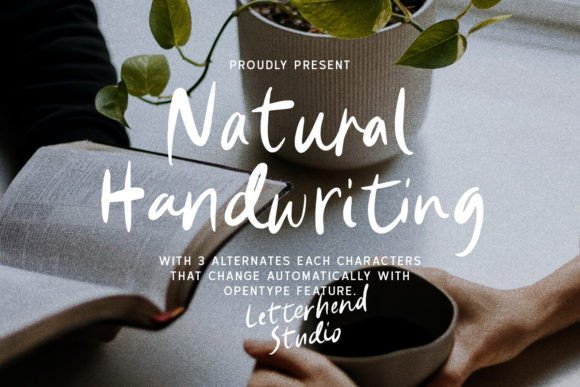
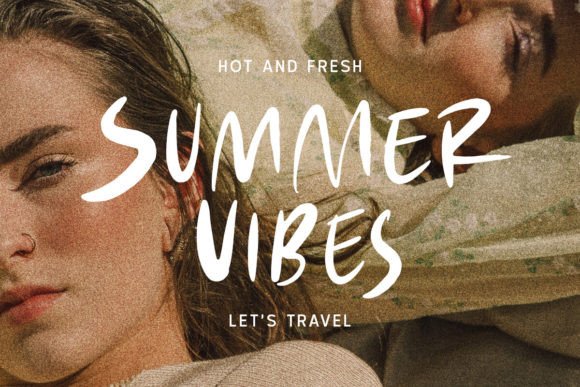
This one feels like a real pen hit paper — textured, slightly uneven, alive. I’ve used Handwriting Fonts like this for coffee shop menus, personal blog headers, and even packaging that needs a homemade soul.
The brush texture saves it from looking fake. Big plus: it stays readable at medium sizes, so it works for quotes in digital books or soft branding. If you want “human” without the cringe, grab this.
Best for: Logos, quote posters, cozy branding, stationery.
Avoid: Tiny body text or formal reports.
2. Simple Daily Handwriting Script Font
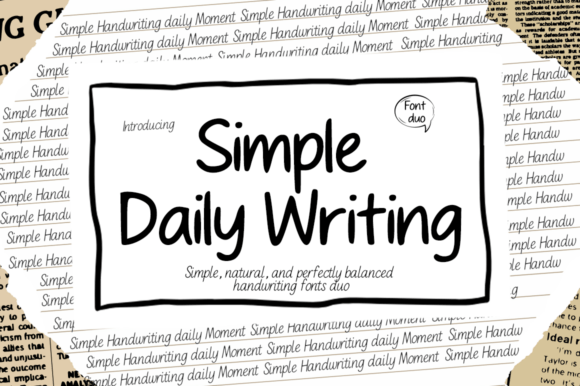
A Handwriting Fonts duo that doesn’t scream for attention. Regular for calm headers, Italic when I need a little motion — like a quiet conversation.
I’ve used this for digital planners, cozy recipe cards, and even light branding for a small bakery. The smoothness keeps it legible, so no squinting. What I love? It’s warm but not cutesy. Works great in e-books and posters where you want “effortless” to actually look effortless.
Best for: Journals, lifestyle blogs, soft logos, invitations.
Avoid: Heavy industrial or tech projects.
3. Raleigh Handwriting Script Font
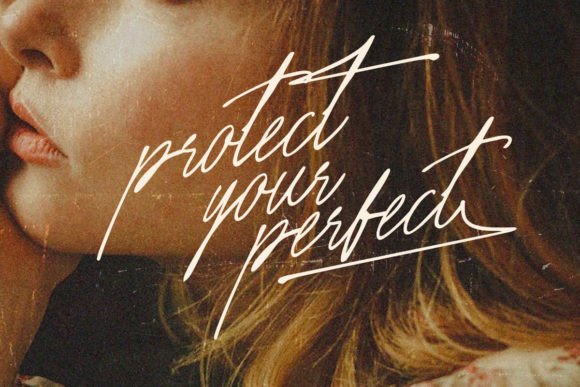
This one feels like a fancy pen that actually likes you. Raleigh brings real calligraphy flow — not that stiff, robotic stuff. I’ve reached for this Handwriting Fonts gem when doing wedding suites, elegant logos, and even digital signatures that need class.
The strokes have nice contrast: thick down, thin up. Makes any project look deluxe without screaming “look at me.” Bonus? Works beautifully for short quotes on posters or book covers. If you want modern but warm, this is your plus-one.
Best for: Invitations, luxury branding, signature-style logos, feminine packaging.
Avoid: Long body text or kids’ play designs.
4. Lively Writing Script Font
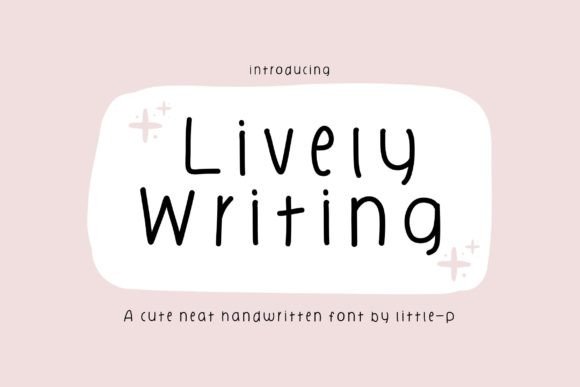
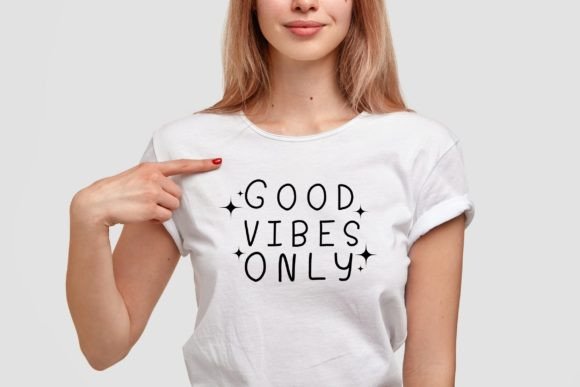
This font has actual personality — like that friend who always makes you laugh. I’ve dropped this Handwriting Fonts cutie into GoodNotes planners, kid-friendly posters, and even a T-shirt mockup once. It’s playful but not messy. Easy to read even when I’m tired (trust me, that’s rare).
The strokes bounce a little, which makes quotes and greeting cards feel alive. If you’re making educational stuff or just want your digital notes to not put you to sleep, grab this. Turns boring into bubbly.
Best for: Digital planners, classroom materials, cheerful quotes, casual merch.
Avoid: Corporate reports or elegant weddings.
5. Beauty Handwriting Script Font
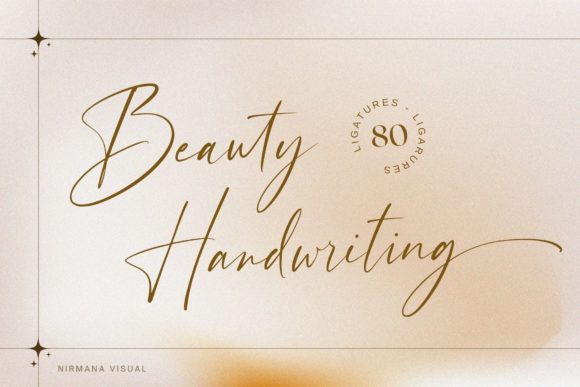
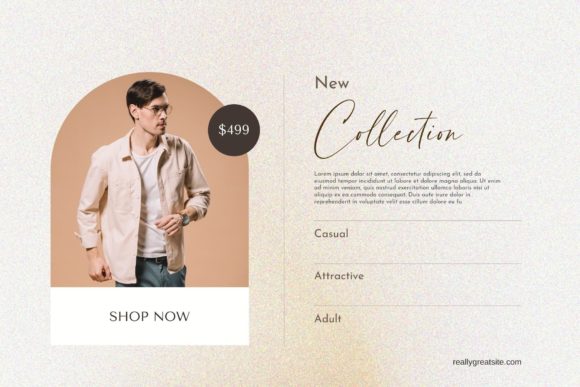
This one flows like it’s not even trying. Beauty Handwriting sits in that sweet spot between casual and polished — perfect when I need Handwriting Fonts that feel high-quality but not stiff.
I’ve used it for organic product packaging, wedding flyers, and even event posters where I want warmth without losing professionalism. The character balance is lovely: not too loopy, not too plain. Works like a charm for mockups too. Clients always ask “what font is that?” — that’s the sign.
Best for: Packaging, invitations, beauty brands, lifestyle posters, mockups.
Avoid: Heavy technical docs or tiny footnotes
6. Boyfriends Handwriting Script Font
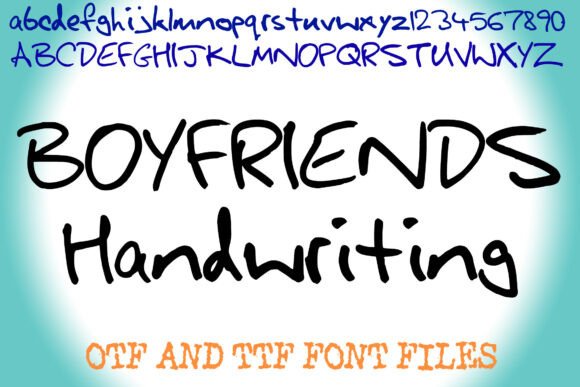
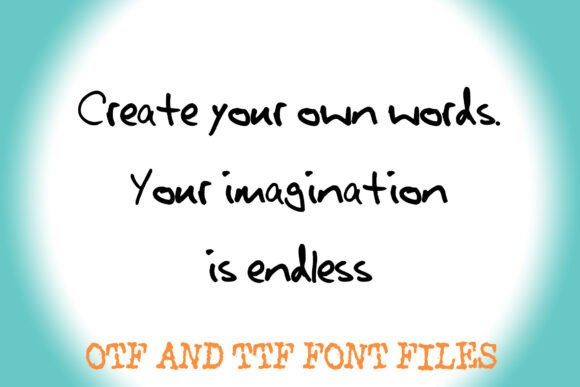
Stop pretending. Digital fonts that try too hard to look real? I’m done with those. This one actually is real — captured from actual pen on paper. Every wobble, every natural connection. When I need Handwriting Fonts that feel like a genuine note from someone you love, this is it. The messy-but-readable balance is magic.
I’ve used it for Instagram quotes, digital journaling in GoodNotes, even small boutique labels. Works in Canva, Procreate, Cricut — no headaches. It’s perfectly imperfect, just like real handwriting should be.
Best for: Personal branding, heartfelt social media, digital planners, custom gifts, wedding signs.